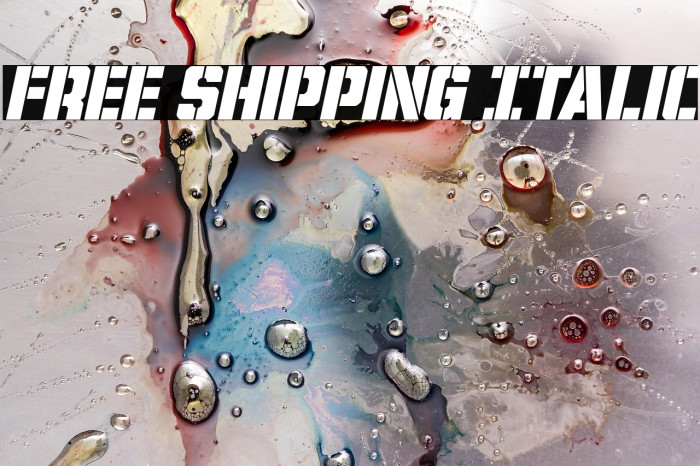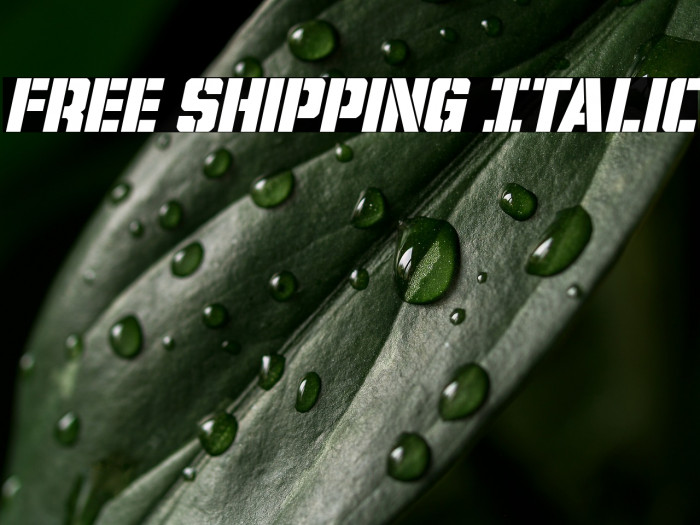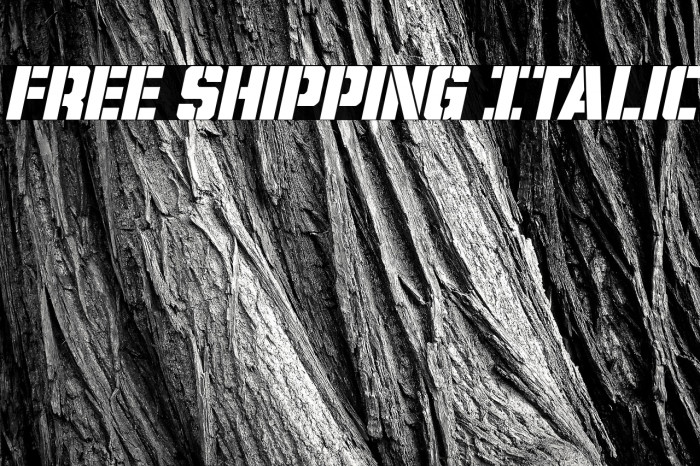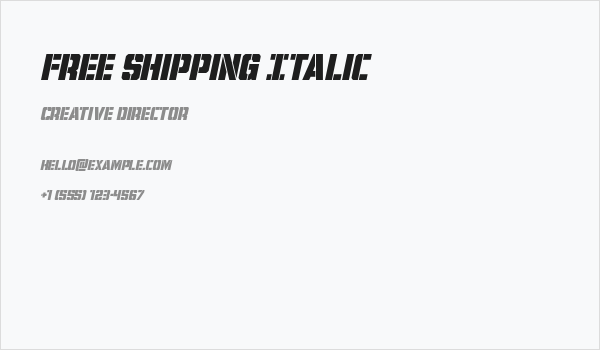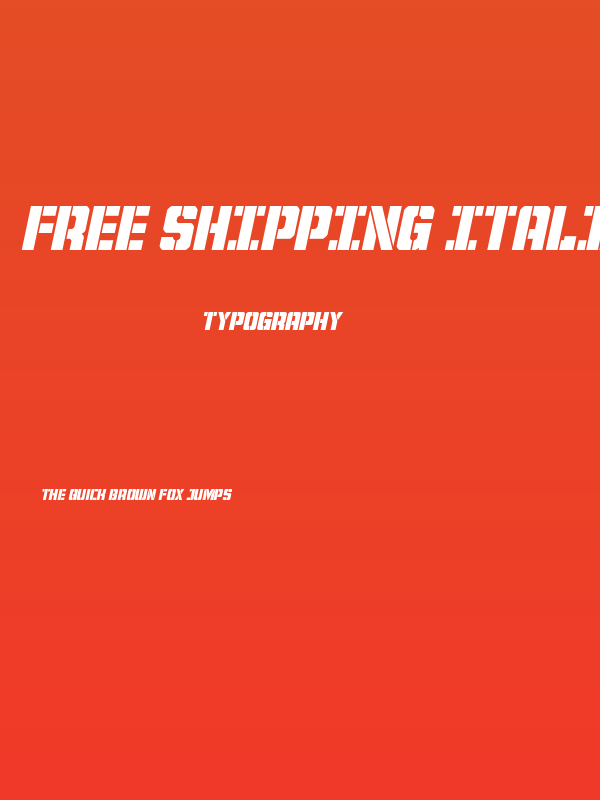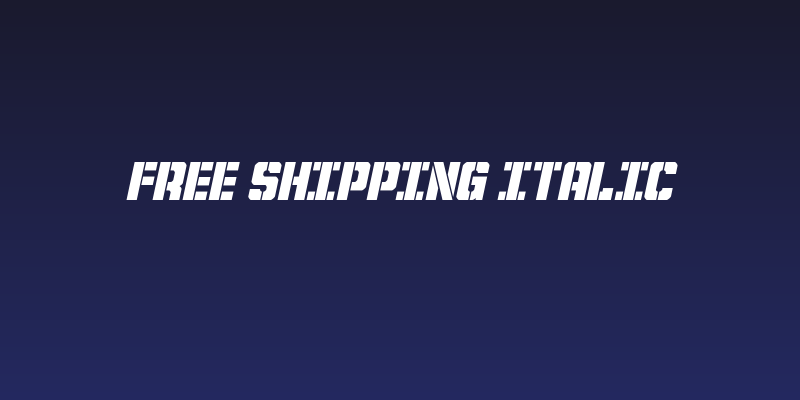
Free Shipping Italic Font
Free Shipping Italic Description
This font features a bold, italicized style with a distinct stencil-like appearance. Each character is composed of solid, angular shapes with breaks that give it a fragmented look. The uppercase and lowercase letters maintain a consistent slant, enhancing the dynamic and energetic feel. The numbers and special characters follow the same design principles, ensuring uniformity across the font. The boldness of the strokes combined with the italic slant makes it stand out, ideal for attention-grabbing designs.
| Proposed Projects | Ideal for posters, branding, and packaging designs that require a bold and dynamic aesthetic. |